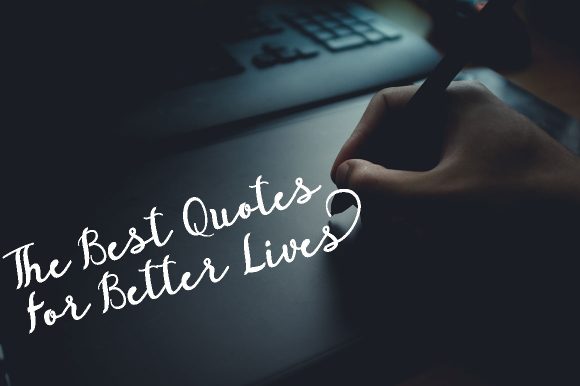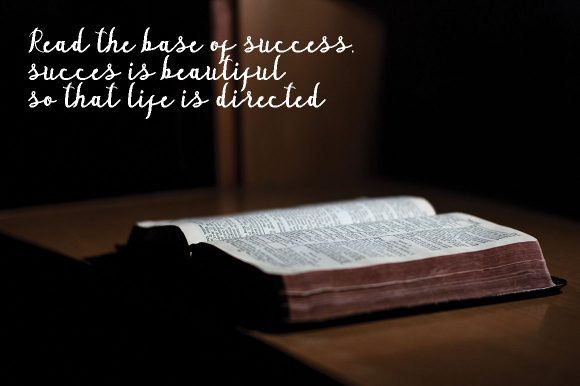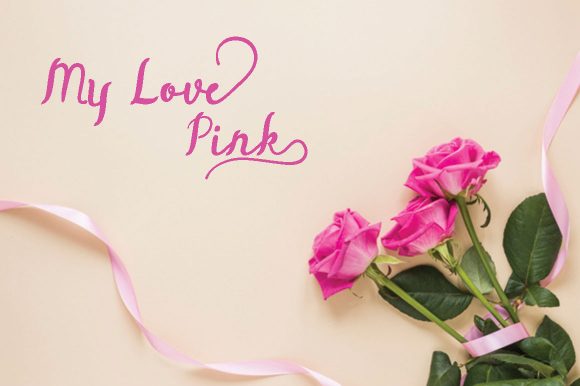
Introducing Harther Font: A Whimsical and Genuine Handwritten Font
Are you tired of using the same old fonts for your creative projects? Look no further than Harther Font, a unique and charming handwritten font that’s sure to take your designs to the next level. In this article, we’ll dive into the features and benefits of Harther Font, and explore how it can add a touch of magic to your creations.
What is Harther Font?
Harther Font is a carefully crafted handwritten font that’s designed to bring a sense of whimsy and personality to your designs. With its flowing lines and genuine feel, this font is perfect for adding a touch of warmth and humanity to your projects. Whether you’re working on a logo, a poster, or a digital product, Harther Font is sure to make your creation stand out.
Key Features of Harther Font
- Whimsical and genuine design: Harther Font features a unique and charming design that’s sure to capture the attention of your audience.
- Versatile: This font is perfect for a variety of design projects, from logos and posters to digital products and more.
Benefits of Using Harther Font
So why choose Harther Font for your next design project? Here are just a few benefits of using this amazing font:
- Add a personal touch: Harther Font’s genuine and handwritten design adds a personal touch to your creations, making them feel more approachable and relatable.
- Stand out from the crowd: With its unique and whimsical design, Harther Font is sure to make your project stand out from the crowd.
Who is Harther Font for?
Harther Font is perfect for designers, crafters, and anyone looking to add a touch of personality to their creations. Whether you’re a:
- Graphic designer: Looking for a unique font to use in your next design project.
- Crafter: Creating handmade products, such as cards, gift tags, and more.
- Digital product creator: Looking for a font to use in your digital products, such as printables and templates.